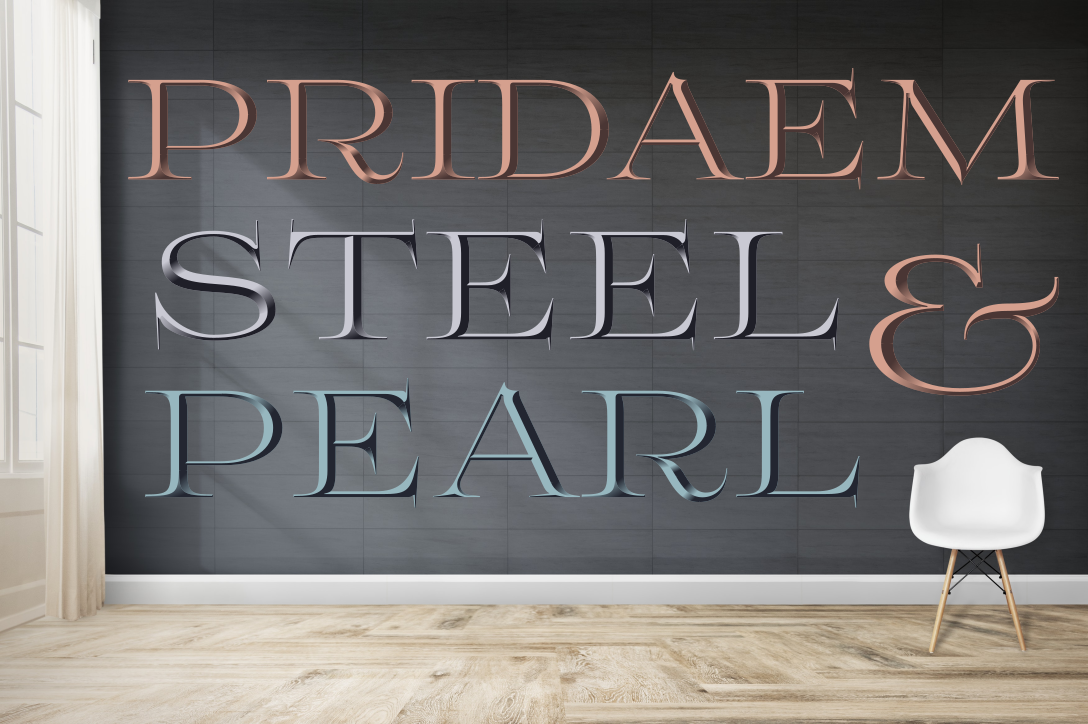
Color font PridaEm
Color fonts family PridaEm was created inspired by the metal shine: aluminium, beryl, copper, gold, pearl and steel. Fully vector color Letters allow you to create any size headers, banners or advertising slogans. Decorative, color fonts in OpenTypeSVG .TTF and .WOFF format with:
- diacritic glyphs
- contextual alternates